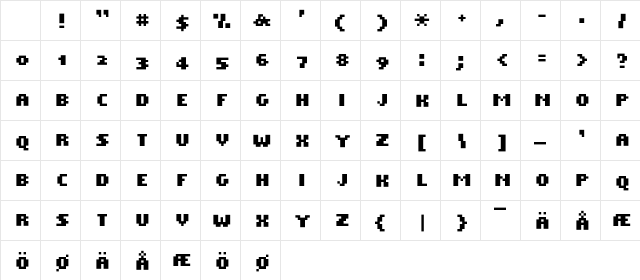
Complete Dwarf FatOldStyleDigits glyph index. Displaying only characters natively supported by Dwarf FatOldStyleDigits font.
Dwarf has a distinctly futuristic character, with geometric precision and clean angles that feel at home in technology, gaming, and sci-fi contexts.